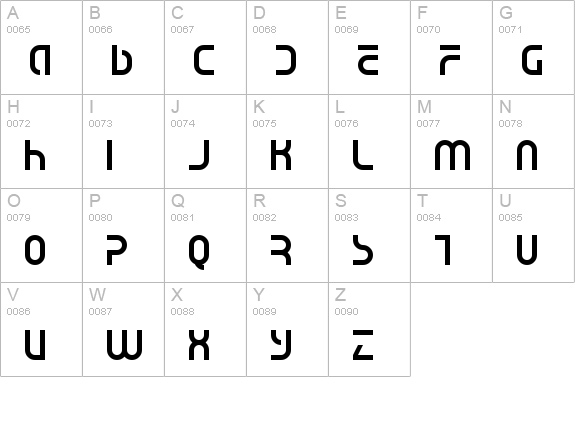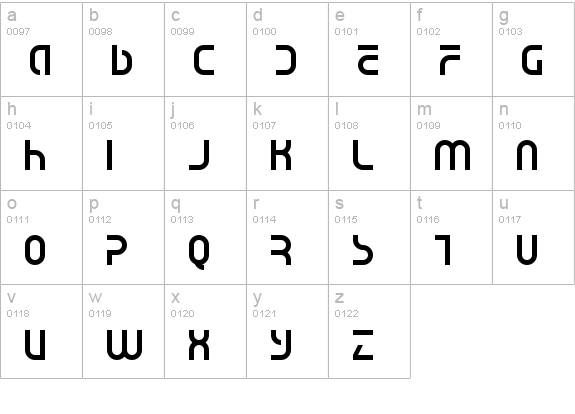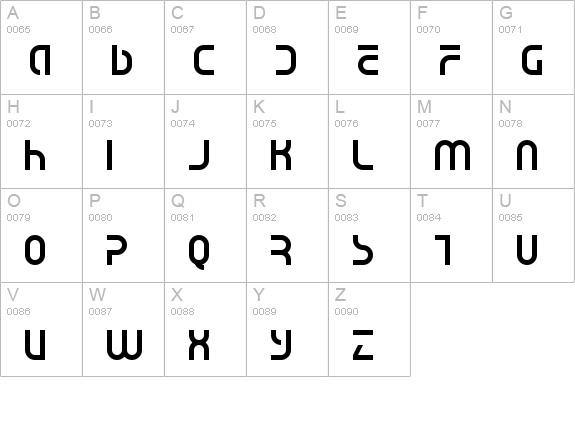
Voyager NBP Font Details
Voyager NBP font is a beautifully crafted typeface that combines elegance and modernity in its design. With its clean and versatile letterforms, this font is perfect for a wide range of design projects, from branding and advertising to editorial and web design. The Voyager NBP font exudes a sense of sophistication and professionalism, making it a great choice for corporate identities and professional documents. Its balanced proportions and smooth curves give it a timeless appeal that will never go out of style. One of the best things about the Voyager NBP font is that it is available for free download at FontsMarket.com. This means that you can easily access and use this stunning font in your projects without any cost. Whether you are a professional designer or a hobbyist, this font is a valuable addition to your font library. The Voyager NBP font is designed to be highly legible, even at small sizes, making it ideal for body text in print and digital media. Its clean lines and open letterforms ensure that every character is clear and easy to read, enhancing the overall reading experience. In addition to its readability, the Voyager NBP font also offers a wide range of weights and styles, allowing you to create dynamic and visually appealing designs. From light and airy to bold and impactful, this font has it all, giving you endless possibilities to explore in your creative projects. Whether you are working on a logo, a poster, a website, or any other design project, the Voyager NBP font is a versatile and reliable choice. Its timeless elegance and free availability at FontsMarket.com make it a must-have font for any designer looking to elevate their work to the next level.